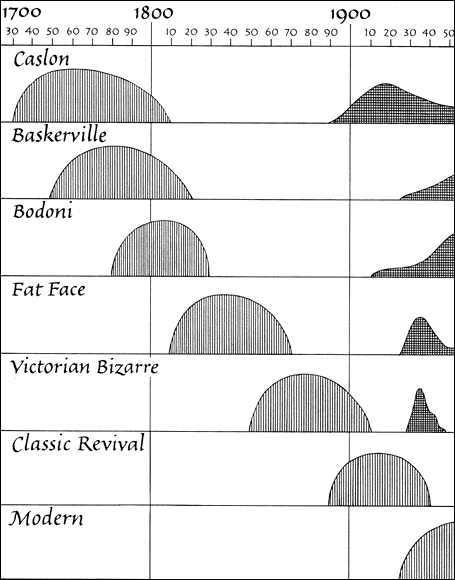
Type Trends
I thought to share an interesting graph that I recently stumbled across:
It's from page 195 of "The shaping of our alphabet" by Frank Denman (Knopf, 1955). The chapter home to the graph (#12, "Where do we go from here?") is actually a riveting read itself, and contains a completely unexpected and very eloquent defense of... alphabet reform! I tell you, the things one finds by mistake.
Anyway, rather than offer my interpretations of the graph,
I'd like to stay quiet and hear of the things you see in it.
Thanks, Hrant. I saw this graph on the AtypI list the other day, bookmarked it, and have meant to bring it up. Very interesting stuff! I wonder how a graph today might look.
I don't understand the chart.
It's supposed to show the use of various styles of type over the years. For each "row" the first hill is the main movement, the second is a revival. Note that this thing seems to be "pseudo-quantitive": it's not based strictly on numbers (as the author admits), but it does contain views of certain specific things. For example, note the little wobble in the descent of the revival of "Victorian Bizarre". Also, the hills don't seem to be to relative scale. For example, the peak of "Modern" should be much higher than that of "Caslon" (considering the greater use of type 200 years later), but it's all been normalized instead.
I'd love to have a graph that extends to today. But I'm not remotely qualified to make it, especially since I have a feeling it starts getting really messy in the past 20 years.
So, what do you guys think about:
1. The [supposed] regularity of the main trends.
2. The timing of the revival hills.
If foundries would be more willing to release
font sales numbers, we'd wouldn't be far from
creating that new graph.
Quite a few foundries do this, by the way. Emigre posted their top nine sellers in the last issue; FontShop and Jean-François Porchez do the same on a regular basis. The big yellow FontShop book lists the top sellers for a number of foundries.
The thing with the graph is that it doesn't have to be (and maybe even shouldn't be) strictly quantitative to be useful. Note how it's showing classes of fonts, not individual designs - and that's a good thing. So the hard numbers would undoubtedly help, but it would take the analysis and insight of a real guru to "distill" it into something really useful.
Maybe we can build a foundation here, with this small seed question: what are the main style categories since the 1950s? I'm thinking of stuff like "American Grotesk" (Franklin Gothic) or "Humanist Sans" (Syntax) or "Aldine Revival" (JY Aetna), etc. BTW, even just determining the optimal level-of-detail on this thing is an issue of itself...
Also, maybe we're getting ahead of ourselves: Is Denman's graph even a solid foundation to build from? Franklin Gothic, for example, isn't represented...